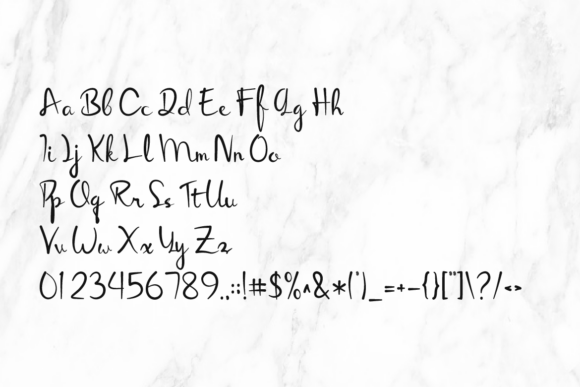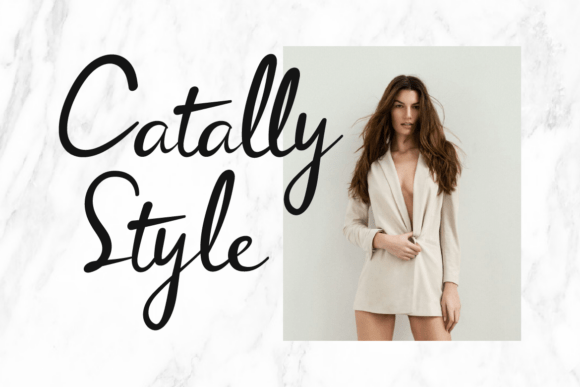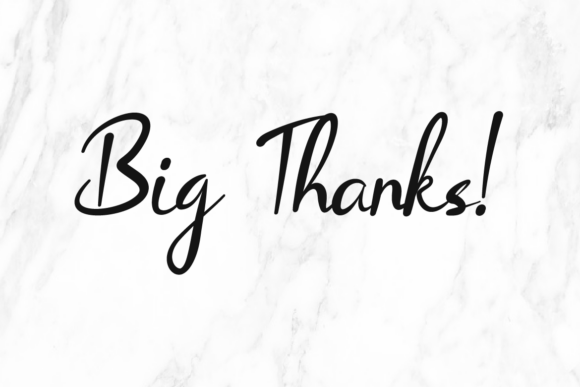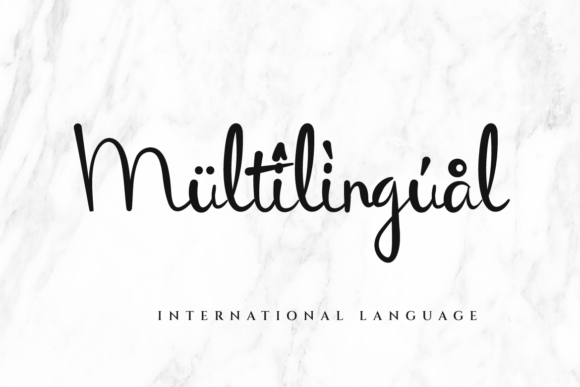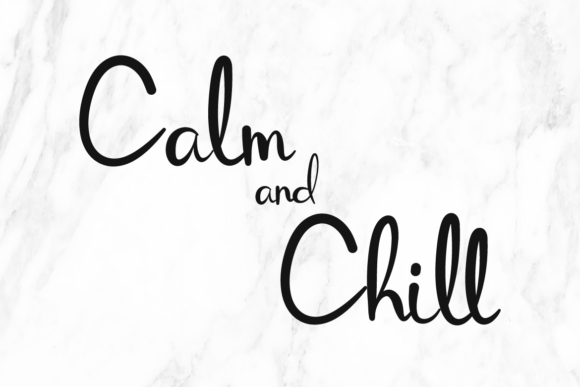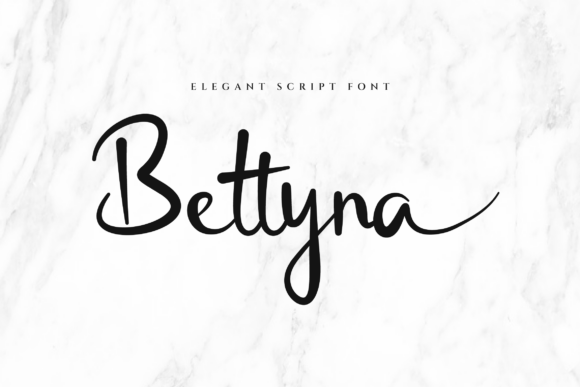
Bettyna Font: Elevate Your Design with Sophisticated Script Elegance
In the realm of typography, few fonts manage to strike a balance between elegance and modernity as effectively as Bettyna. This sophisticated script font has been turning heads with its fresh, modern twist on handwritten typography. Whether you’re a designer looking for a unique touch for your next project or a crafter seeking the perfect font for your brand or product, Bettyna is sure to captivate with its flowing letterforms and graceful curves.
The Essence of Bettyna
Bettyna embodies the perfect blend of traditional handwriting and contemporary design. Its letterforms are meticulously crafted to mimic the fluidity and personal touch of handwritten text, yet they retain a clean and modern aesthetic that appeals to a wide range of design sensibilities. This duality makes Bettyna an incredibly versatile font, suitable for various applications, from digital media and branding to packaging and stationery.
Design Features of Bettyna
One of the standout features of Bettyna is its attention to detail. Each letter is designed with flowing curves and subtle variations in line width, giving the font a dynamic and organic feel. The font’s x-height and letter spacing are carefully calibrated to ensure optimal readability, making it not only beautiful but also functional.
Bettyna’s design also pays homage to the art of handwriting, with a range of ligatures and alternate characters that allow designers to add a personal touch to their work. These features enable the creation of unique and customized text that stands out in any design.
Applications of Bettyna
The versatility of Bettyna makes it an excellent choice for a multitude of design projects. Here are a few ways designers and crafters can utilize this elegant script font:
- Branding and Logotypes: Bettyna’s unique and memorable style makes it perfect for logos and brand identities that require a touch of sophistication and personality.
- Wedding and Event Stationery: The font’s elegant and personal feel is ideal for wedding invitations, save-the-date cards, and other event stationery.
- Packaging Design: Bettyna can add a luxurious and bespoke touch to product packaging, helping brands to stand out on store shelves.
- Digital Media: From blog headers to social media graphics, Bettyna can elevate digital content with its modern and stylish aesthetic.
Why Choose Bettyna?
In a sea of fonts, Bettyna stands out for several reasons:
- Unique Style: Bettyna offers a distinctive look that can help designers and brands differentiate themselves.
- Readability: Despite its elegant and cursive nature, Bettyna maintains high readability, making it suitable for both headings and body text.
- Versatility: The font’s adaptability to various design contexts and mediums makes it a valuable addition to any designer’s toolkit.
Bettyna font is a remarkable addition to the world of typography, offering a sophisticated yet modern take on script fonts. Its ability to blend the personal touch of handwriting with the cleanliness of contemporary design makes it an invaluable resource for designers and crafters alike. Whether you’re aiming to create a stunning brand identity, beautiful stationery, or captivating digital content, Bettyna is sure to bring your vision to life with elegance and style.
Discover the potential of Bettyna and let its graceful curves and flowing letterforms inspire your next design project. With Bettyna, you can achieve a level of sophistication and modernity that will leave a lasting impression on your audience.